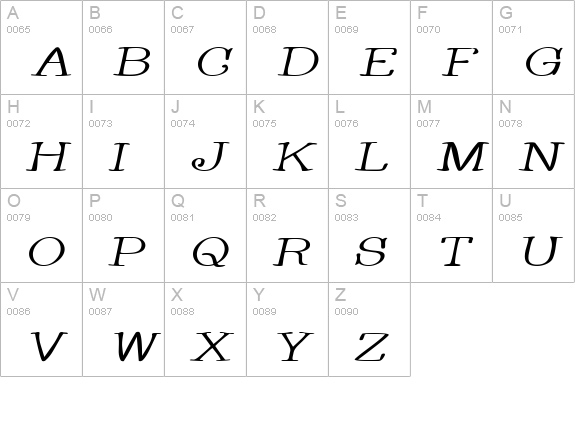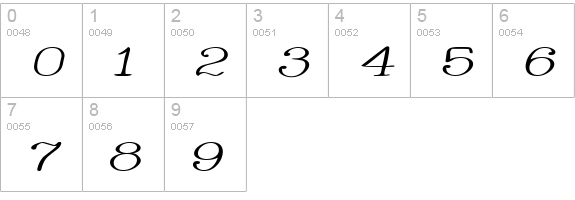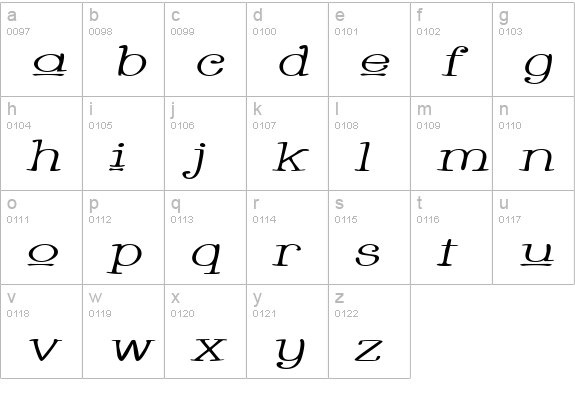
Whackadoo Upper Wide Italic Font Details
Whackadoo Upper Wide Italic is a distinctive, extended-width, italic variant in the Whackadoo typeface family \xE2\x80\x94 well suited to design and typography projects.
Introducing the whimsical and captivating Whackadoo Upper Wide Italic font, designed for those seeking a touch of playfulness in their typography. With its unique blend of curvaceous strokes and bold, italicized letterforms, this font exudes an air of exuberance that is sure to bring joy to any design project. Featuring a wide upper case set, Whackadoo Upper Wide Italic font gives your text a prominent presence while maintaining a sense of balance and harmony. Each letter is meticulously crafted, with elongated lines and exaggerated curves that create a delightful visual rhythm. Whether you're designing a logo for a children's brand, crafting eye-catching headlines, or adding a touch of flair to your social media posts, Whackadoo Upper Wide Italic font is the perfect choice to infuse your designs with energy and vibrancy. And the best part? It's completely free! That's right, Whackadoo Upper Wide Italic font is freely available to download at FontsMarket.com. Now, you can bring a dash of whimsy to your designs without breaking the bank. So why wait? Embrace the charm and creativity of Whackadoo Upper Wide Italic font and let your imagination run wild. Transform your designs into captivating works of art that will leave a lasting impression on your audience. Download this enchanting typeface today and unlock a world of endless possibilities.